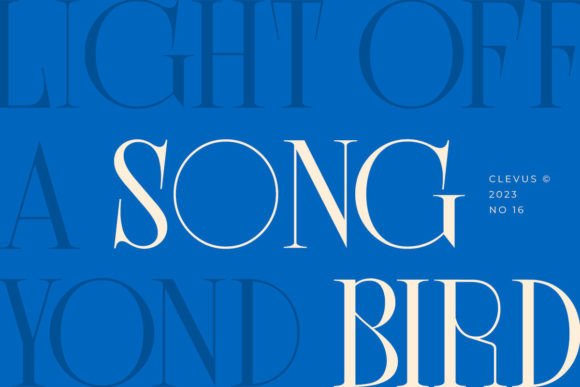
Introducing Song Bird Font, the ultimate choice for anyone seeking to add a touch of nostalgia and capture the essence of the iconic 90s era in their designs. Created by the talented Clevus, this modern serif font is sure to elevate your creative projects to new heights.
With its unique combination of regular and edgy lines, Song Bird Font stands out from the crowd, making it the perfect choice for retro-inspired logos, fashion brands, magazines, clothing designs, lettering, quotes, and so much more. This font effortlessly adds a vintage flair to any project, giving it an instant classic appeal.
Imagine the impact of using Song Bird Font in your web forms. Its elegant and timeless style will captivate users and leave a lasting impression. As the best font for web forms, it ensures a seamless and visually appealing experience for your audience, enhancing their engagement and boosting conversions.
But Song Bird Font is not just about aesthetics; it also offers practicality and versatility. Its eye-catching design draws attention and creates a memorable visual identity for your brand. Whether you're designing a logo, creating a magazine layout, or crafting a captivating quote for social media, this font will make your message stand out from the crowd.